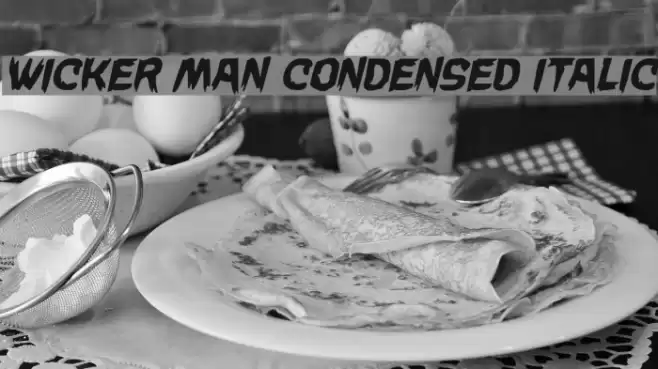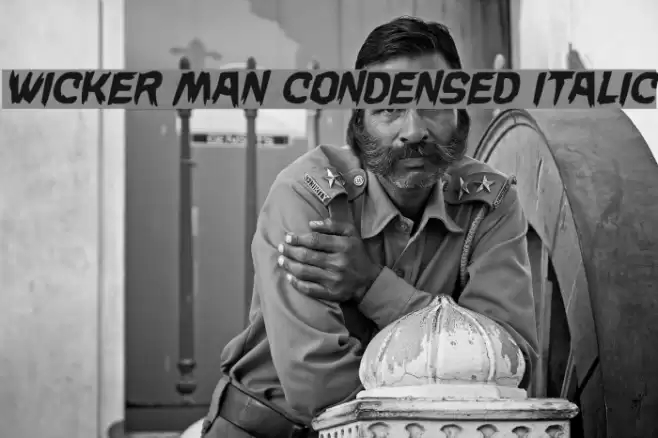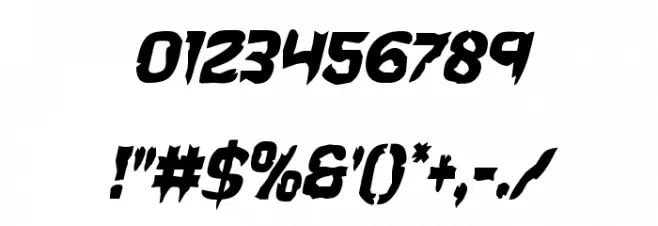
Wicker Man Condensed Italic Font
Wicker Man Condensed Italic Description
This font features a bold and dynamic style with sharp, angular edges and a condensed form. The italic slant adds a sense of motion and energy, making it stand out with a unique flair. The characters are tightly spaced, enhancing its compact appearance. The high contrast between thick and thin strokes gives it a dramatic and eye-catching look. This font is well-suited for projects that require a strong visual impact, such as posters, headlines, and branding materials. Its distinctive style can add a touch of boldness and creativity to any design.
A bold, condensed, and italic font with sharp, angular edges and high contrast from Uncategorized fonts.
- Proposed Projects: Ideal for posters, headlines, branding, and any project needing a strong visual impact.
- Character Spacing: Tight